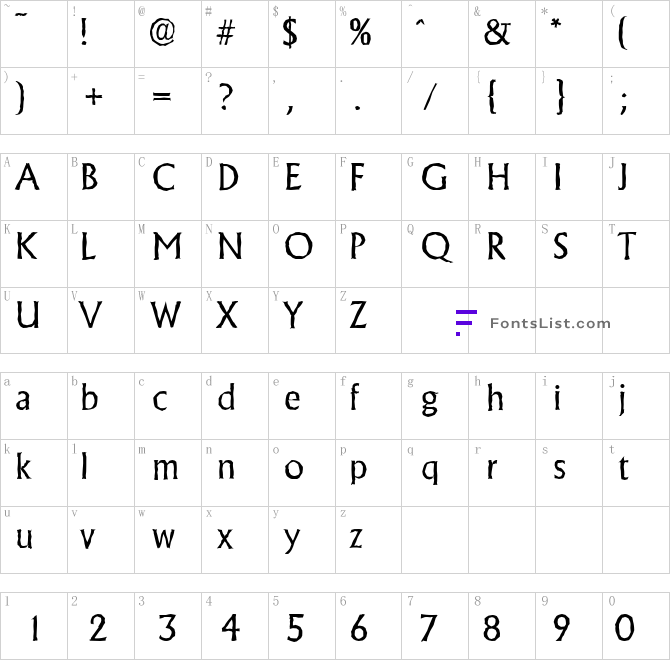
- Font Name:AdelonAntique
AdelonAntique-Regular.ttf is a very beautiful artistic font, AdelonAntique-Regular.ttf is widely used in the design and printing of various books and pictures,AdelonAntique-Regular.ttf has a strong visual impact,AdelonAntique-Regular.ttf is a commonly used font in newspapers, magazines and books, and is used in posters, e-commerce Poster design, store design, logo design, font design and other fields.AdelonAntique-Regular.